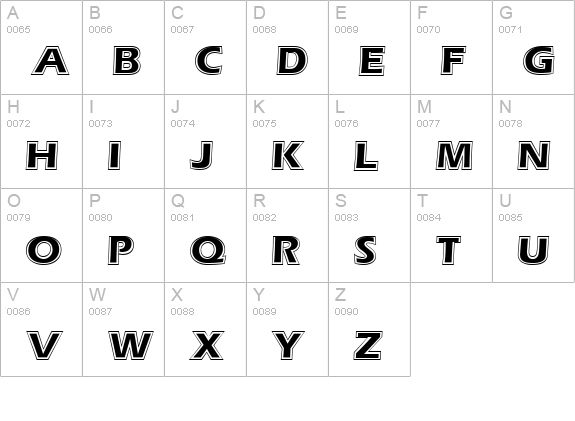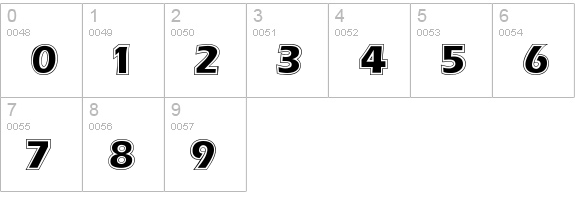
ErieContour Font Details
Introducing ErieContour font, a modern and stylish typeface that adds a touch of elegance to any design project. With its distinct contours and unique letter shapes, ErieContour is sure to make a statement. This font is perfect for branding, logos, invitations, posters, and more. What makes ErieContour even more appealing is that it is available for free download at FontsMarket.com. Yes, you read that right - this high-quality font can be yours at no cost! Whether you're a designer looking to add a new font to your collection or someone who simply appreciates beautiful typography, ErieContour is a must-have. Don't miss out on this opportunity to elevate your designs with ErieContour font. Download it for free today and start creating eye-catching visuals that stand out from the crowd.